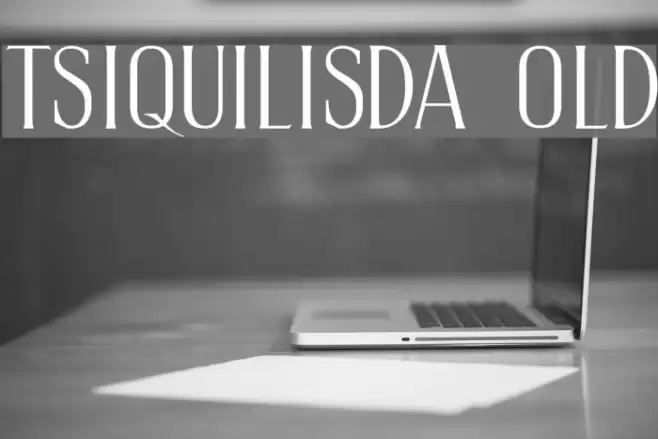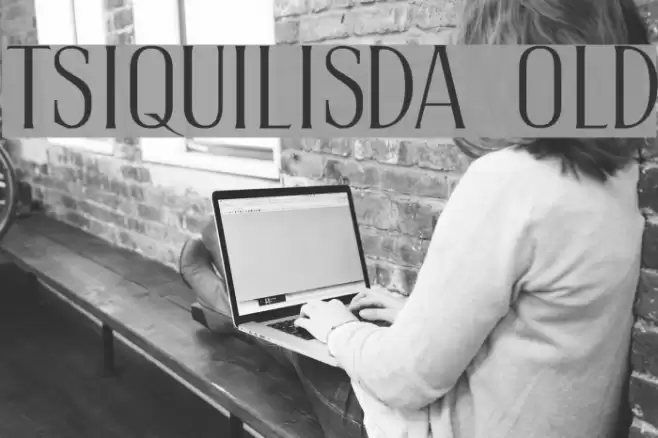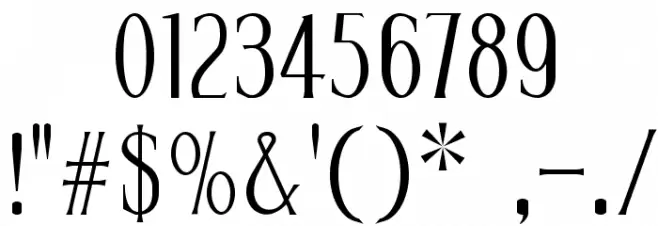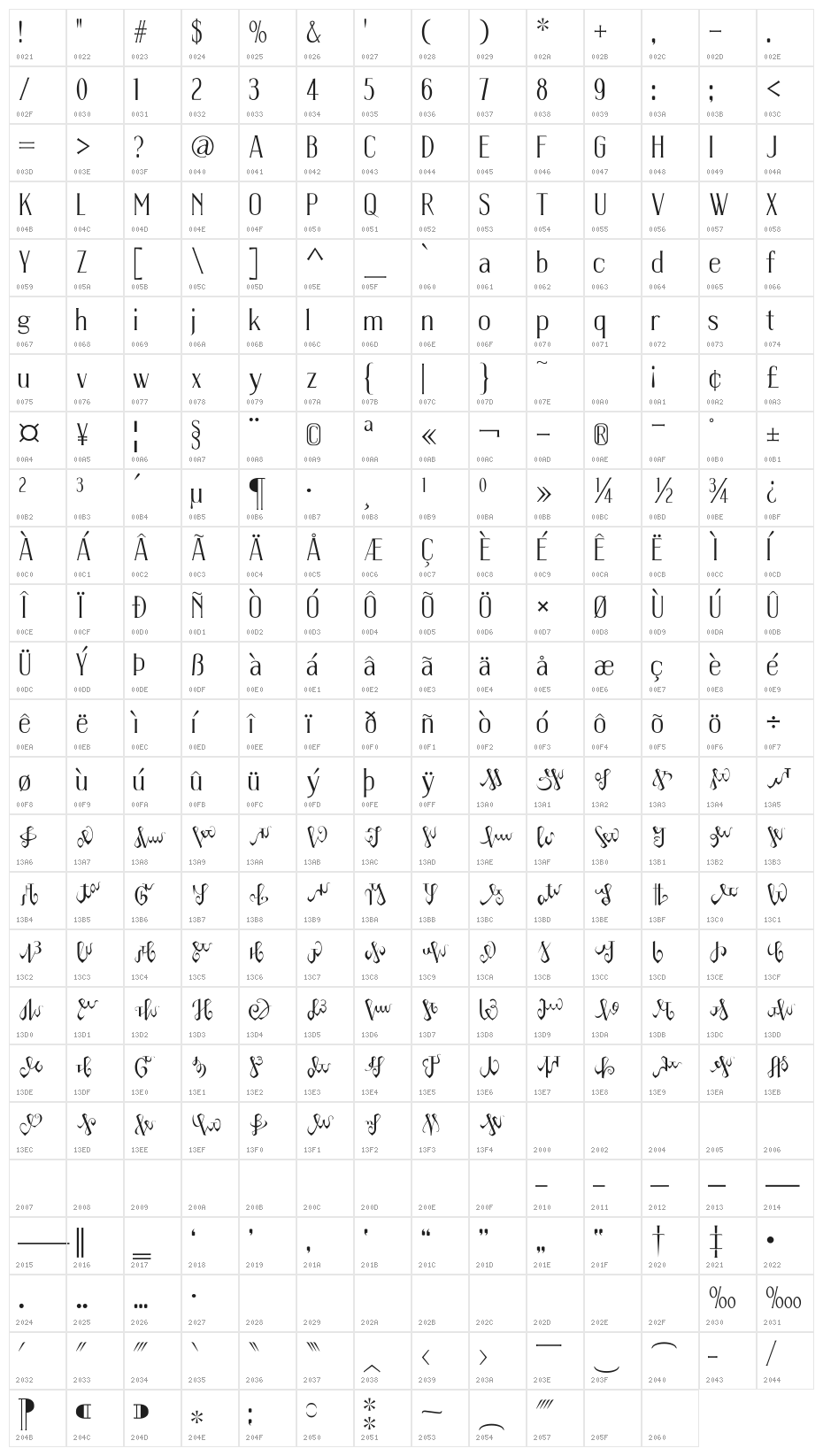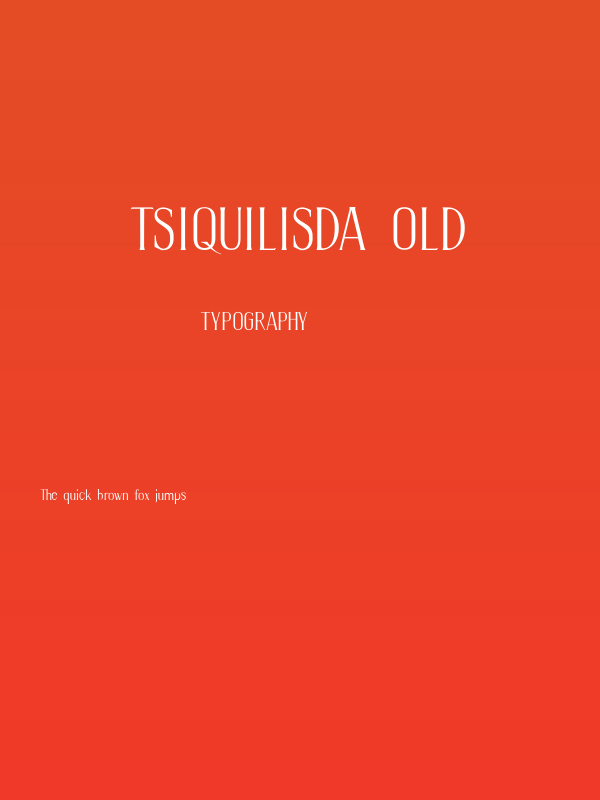
TSIQUILISDA OLD Font
TSIQUILISDA OLD Description
This font features a modern and elegant design with a tall, narrow structure that gives it a sophisticated appearance. The uppercase letters are particularly elongated, creating a sense of height and grace. The lowercase letters maintain a consistent style, with smooth curves and clean lines that enhance readability. The numerals are well-proportioned, fitting seamlessly with the overall aesthetic. Special characters are designed with the same attention to detail, ensuring a cohesive look across all text elements. The font's unique style makes it suitable for a variety of design projects.
A modern, elegant font with tall, narrow characters and smooth curves from Uncategorized fonts.
- Proposed Projects: Ideal for fashion magazines, luxury branding, wedding invitations, and high-end product packaging.
- Overall Style: Elegant and sophisticated
- Use Case: Headlines, Logos, Branding